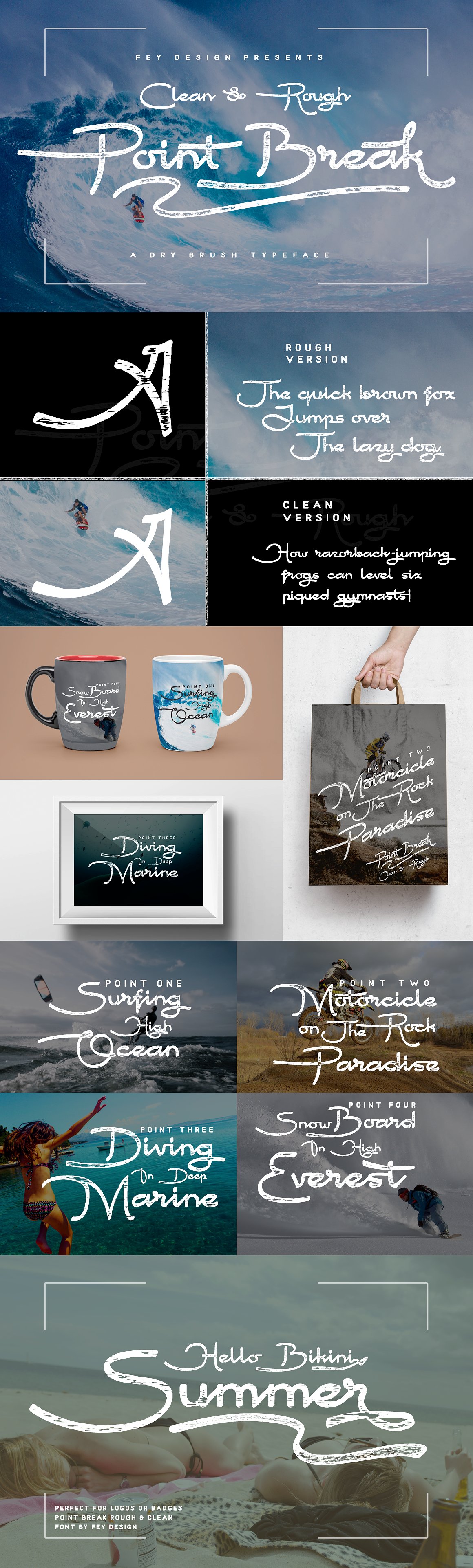
Point Break
Point Break Script Font
Point Break Brush Font is Authentic calligraphy style with clean and rough, Suitable for design, element design, wedding, event, t-shirt, logo, badges, sticker, and awesome work, etc…